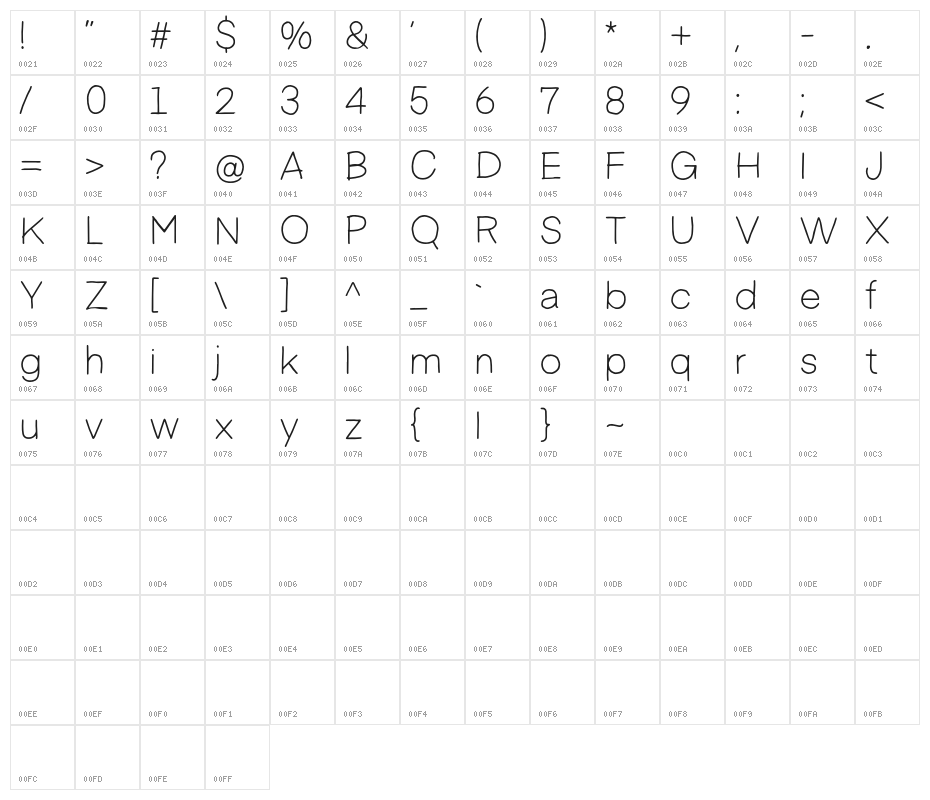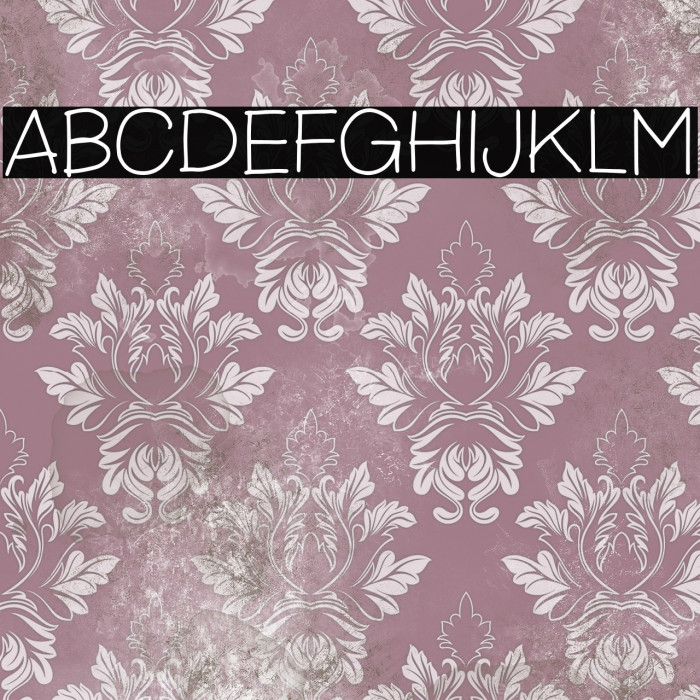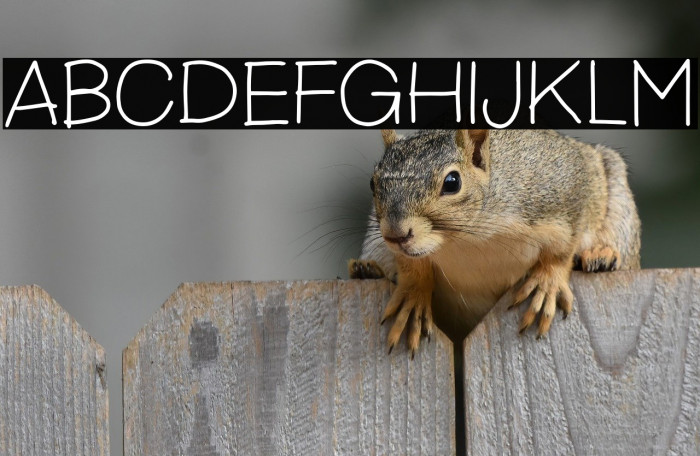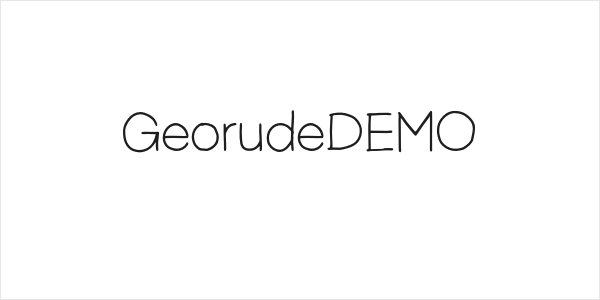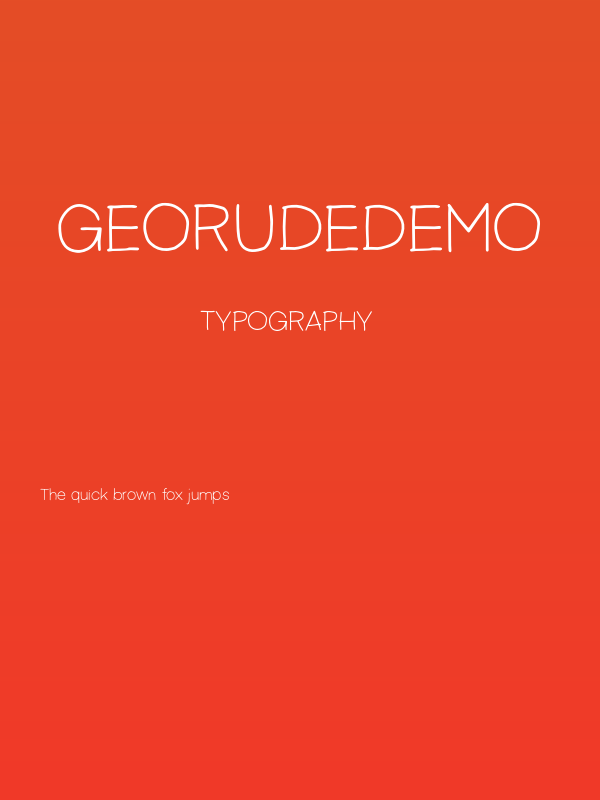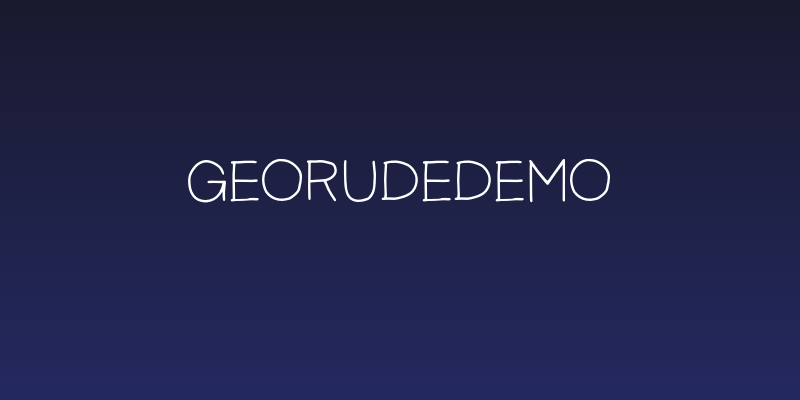
GeorudeDEMO Font
GeorudeDEMO Description
This font features a playful and casual handwritten style, characterized by its smooth curves and slightly irregular lines that give it a personal touch. The uppercase letters are tall and slender, while the lowercase letters maintain a consistent height, creating a harmonious balance. The numerals are clear and easy to read, with a slight tilt that adds to the font's informal charm. Special characters are well-integrated, maintaining the overall aesthetic. This font's simplicity and warmth make it suitable for a variety of creative projects.
| Overall Style | Casual |
| Use Case | Logos, Invitations, Greeting Cards |
| Proposed Projects | Ideal for greeting cards, personal branding, children's books, and casual invitations. |